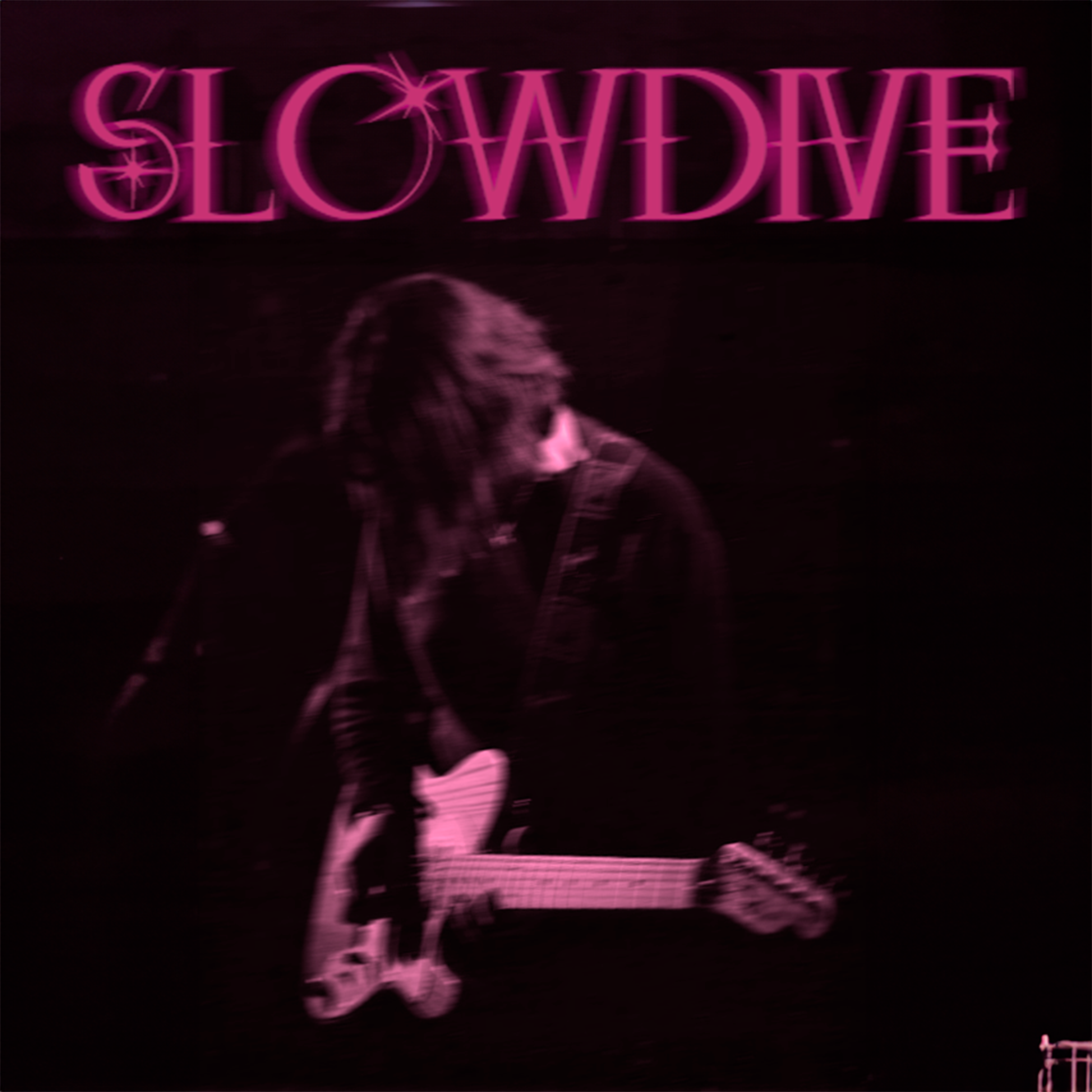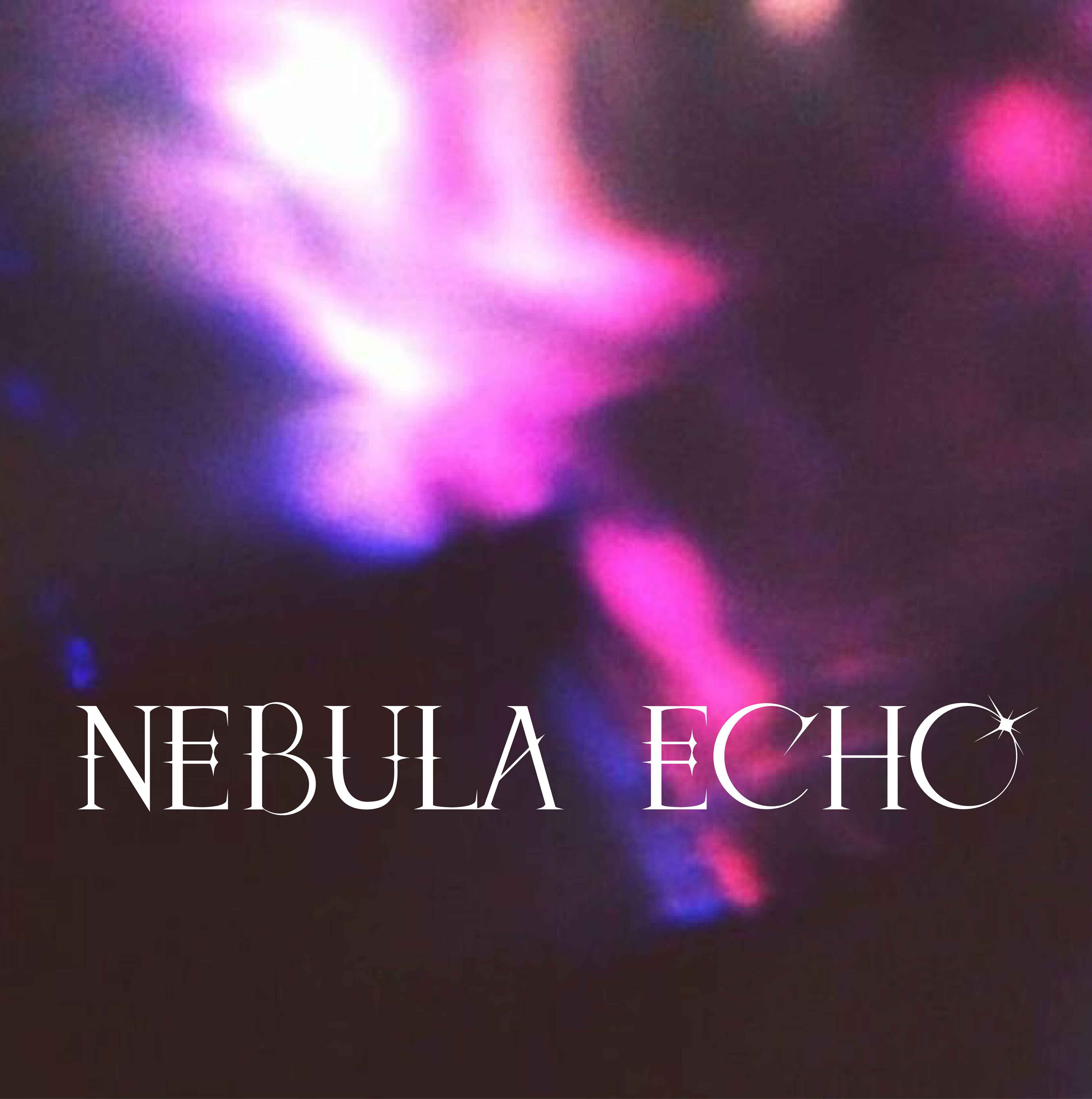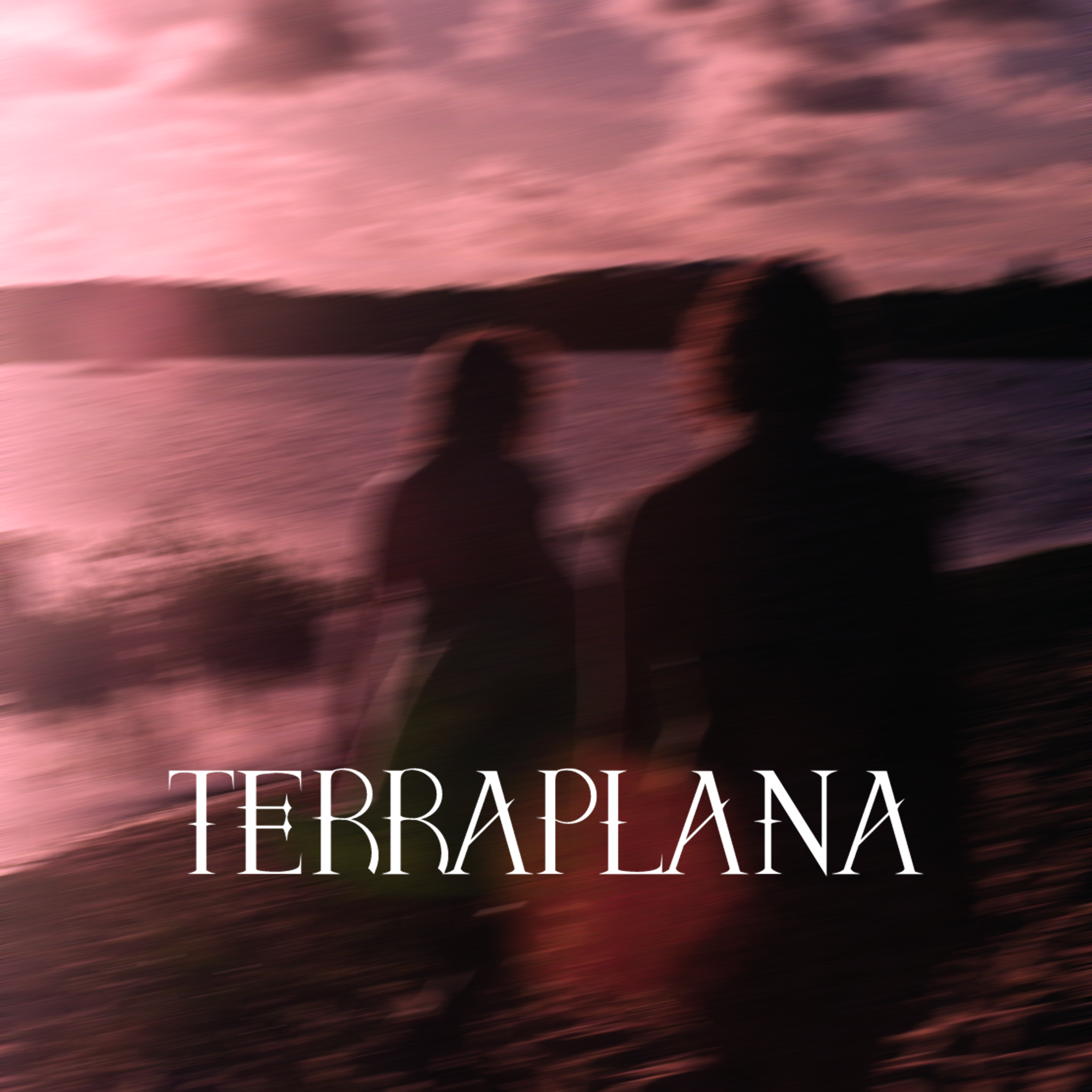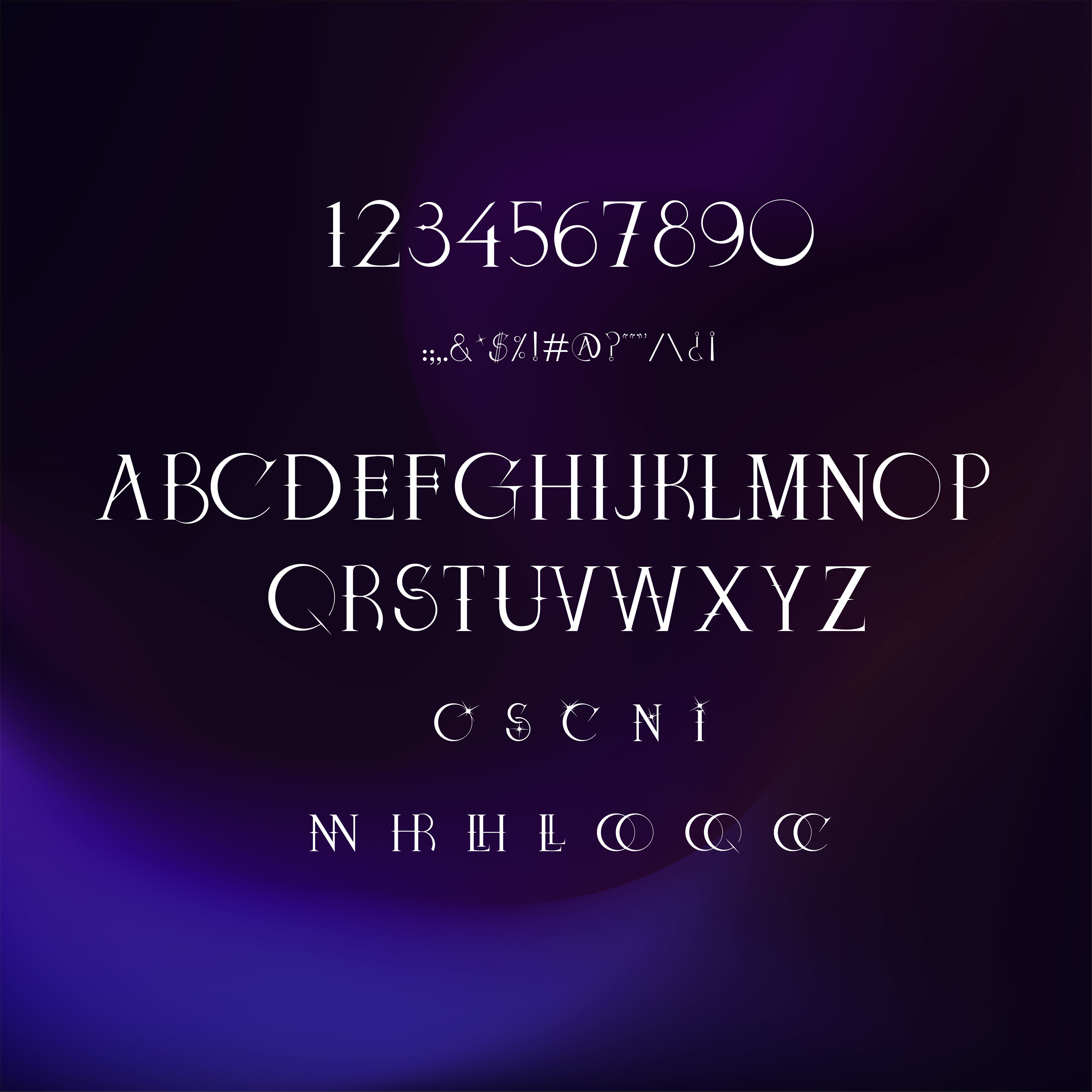
Felipe Barreto Almansa
I created this font inspired by the sounds of shoegaze and dreampop, aiming to capture and recreate the dreamy atmosphere of these musical genres.